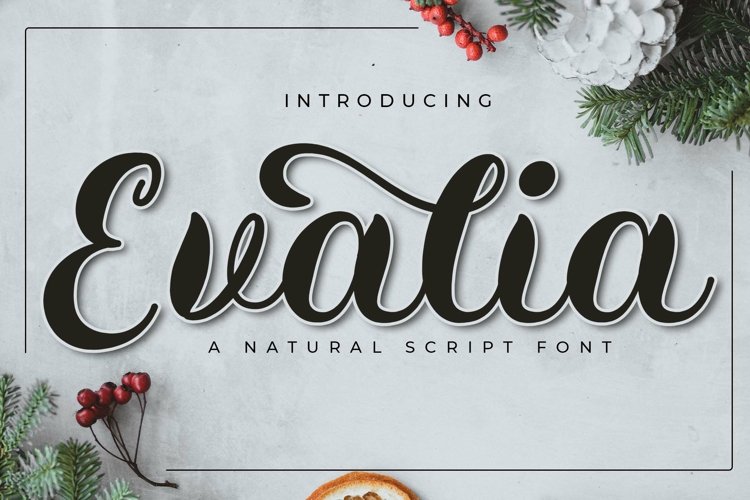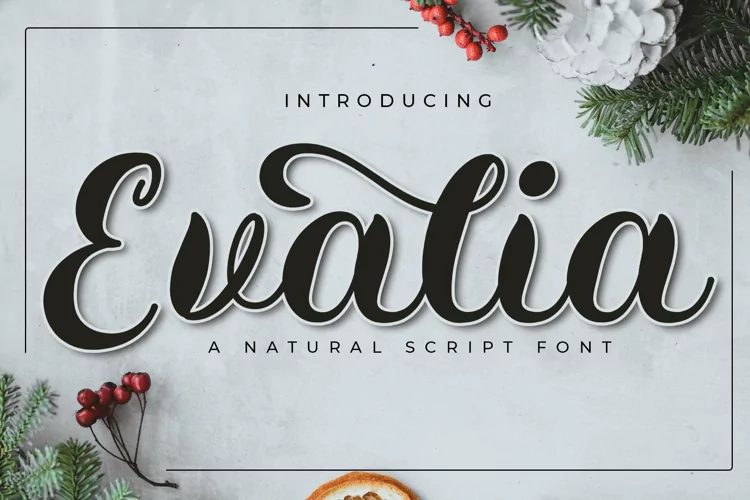
Evalia is a dainty and flowing handwritten font.
Sweet and joyful, this font will be ideal for writing wedding invitations, cards, or any other design that may need a romantic, personalized touch!
Evalia